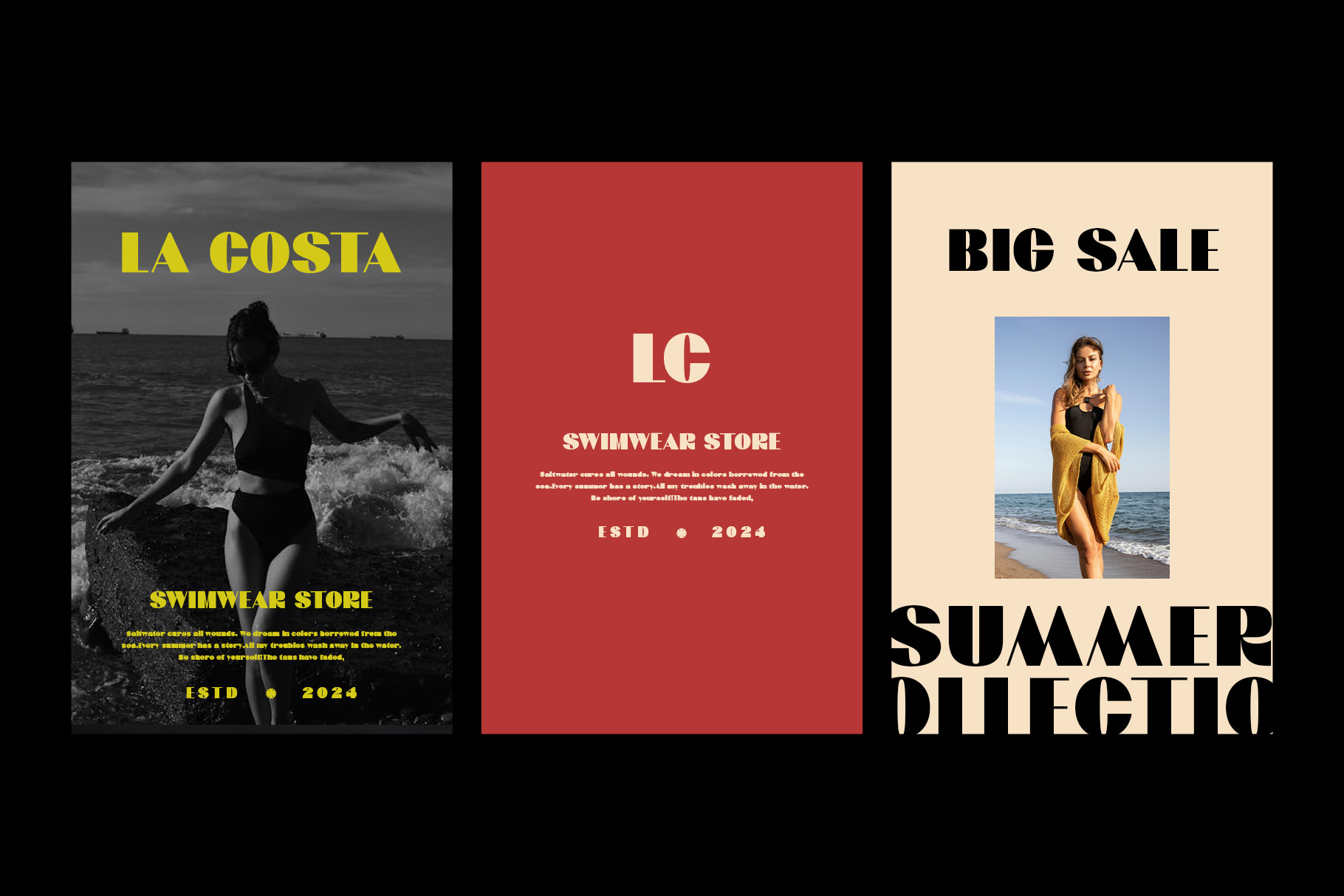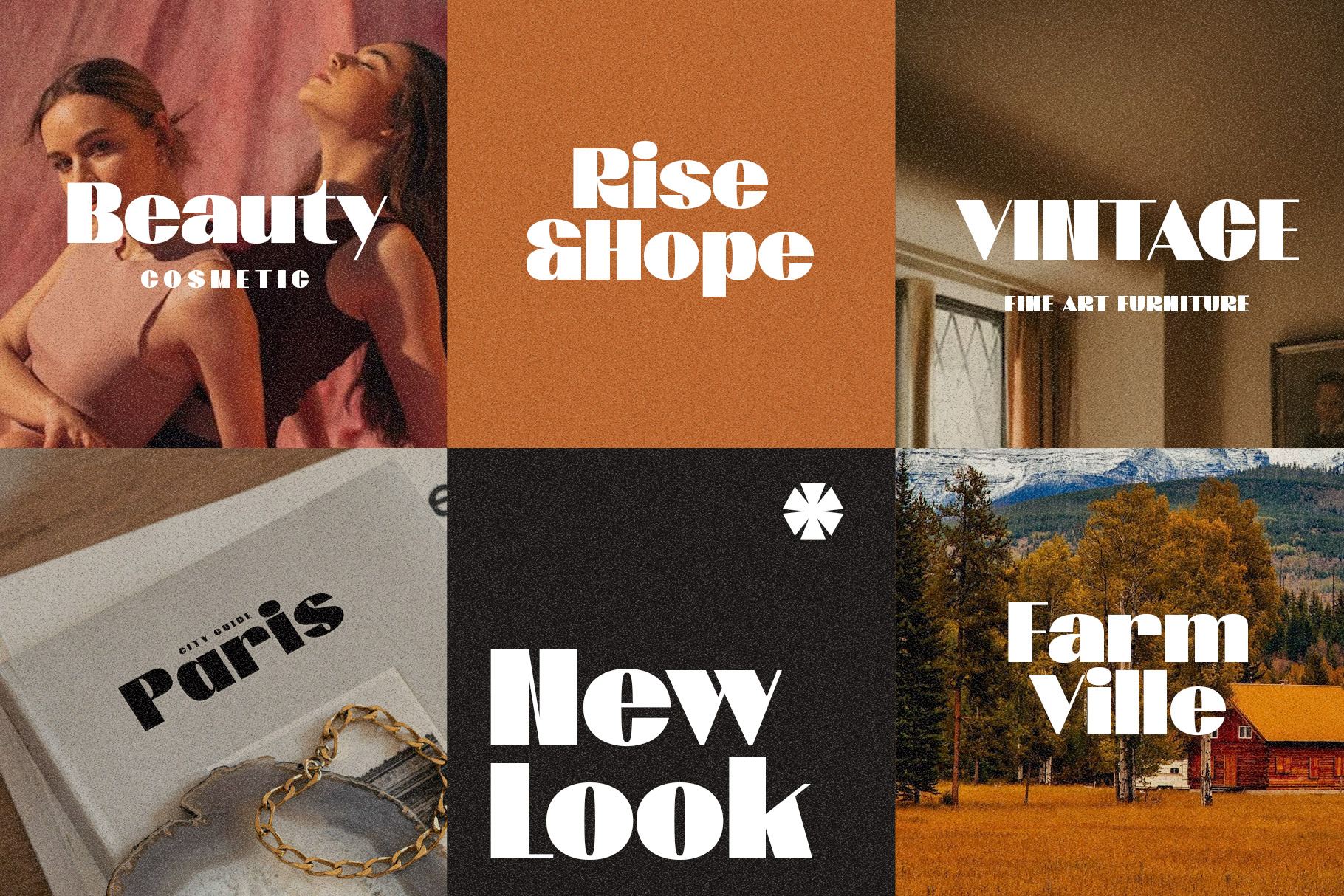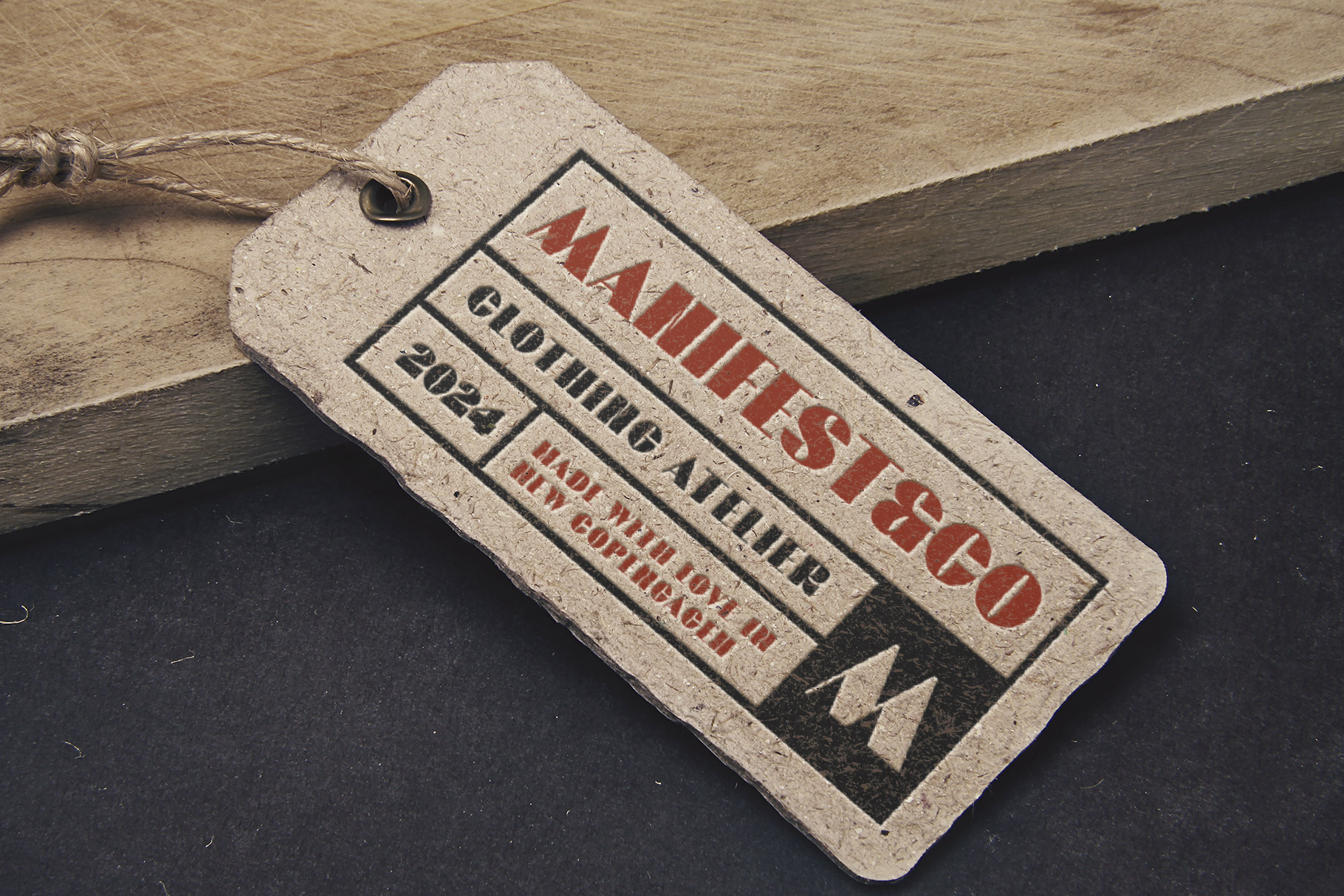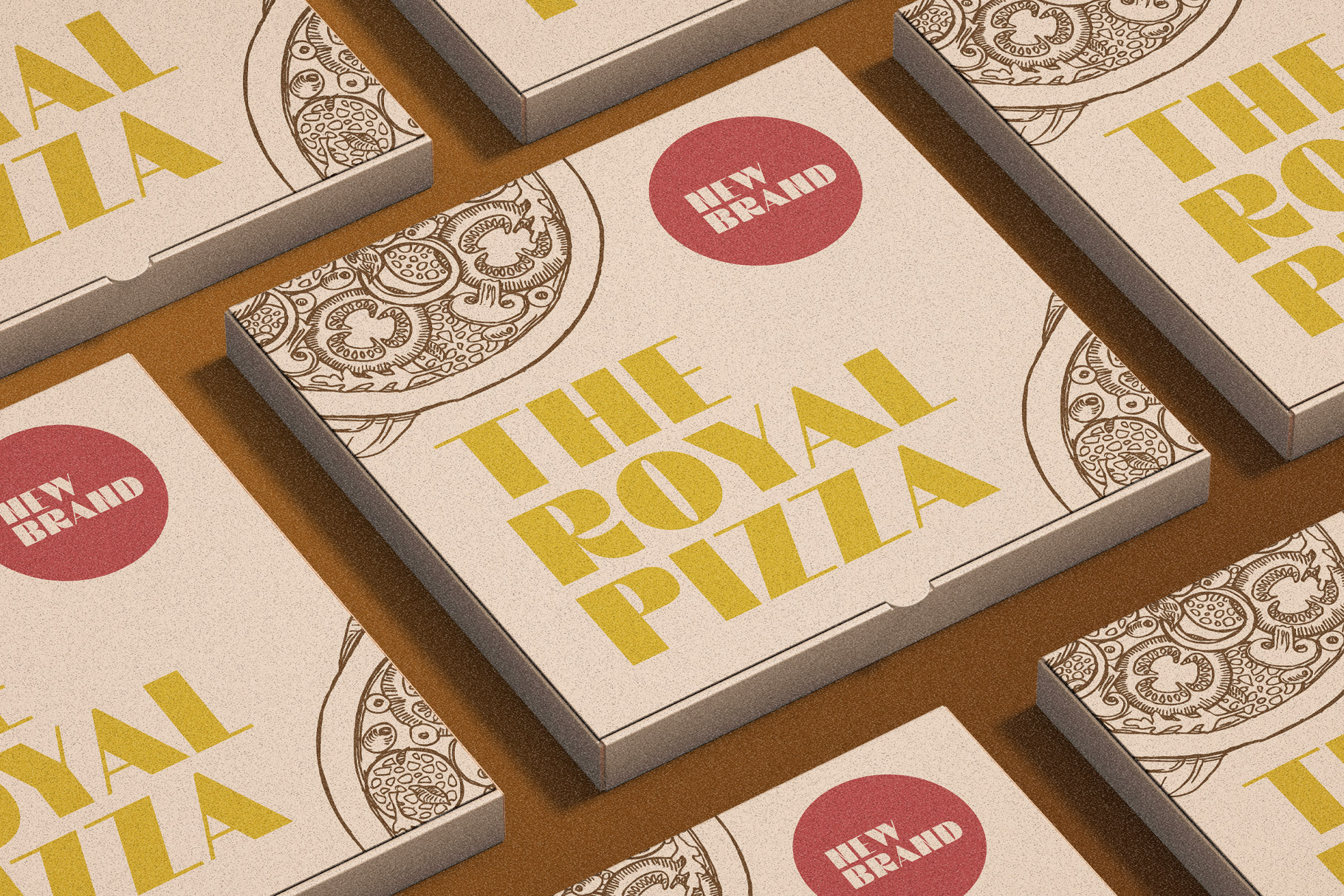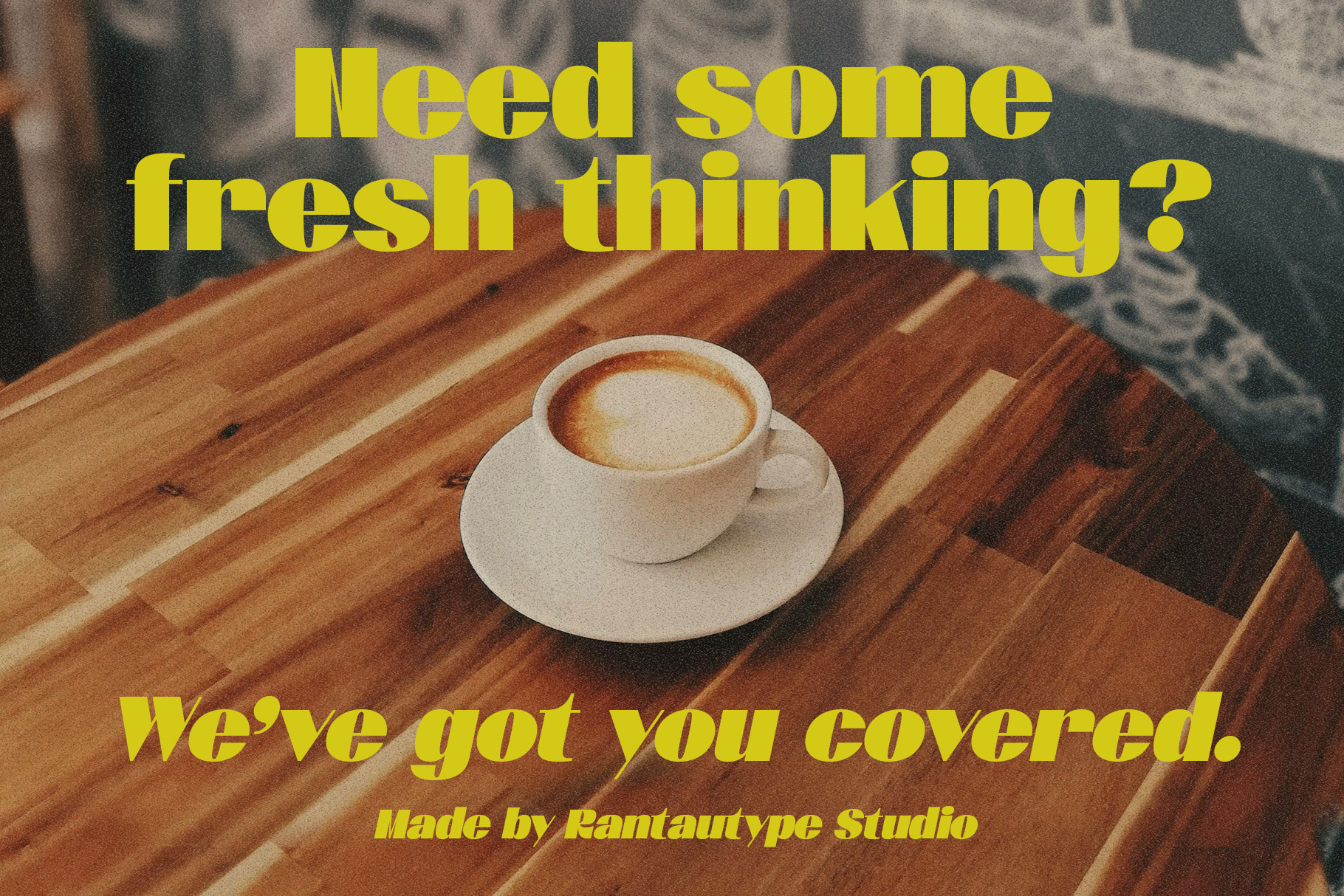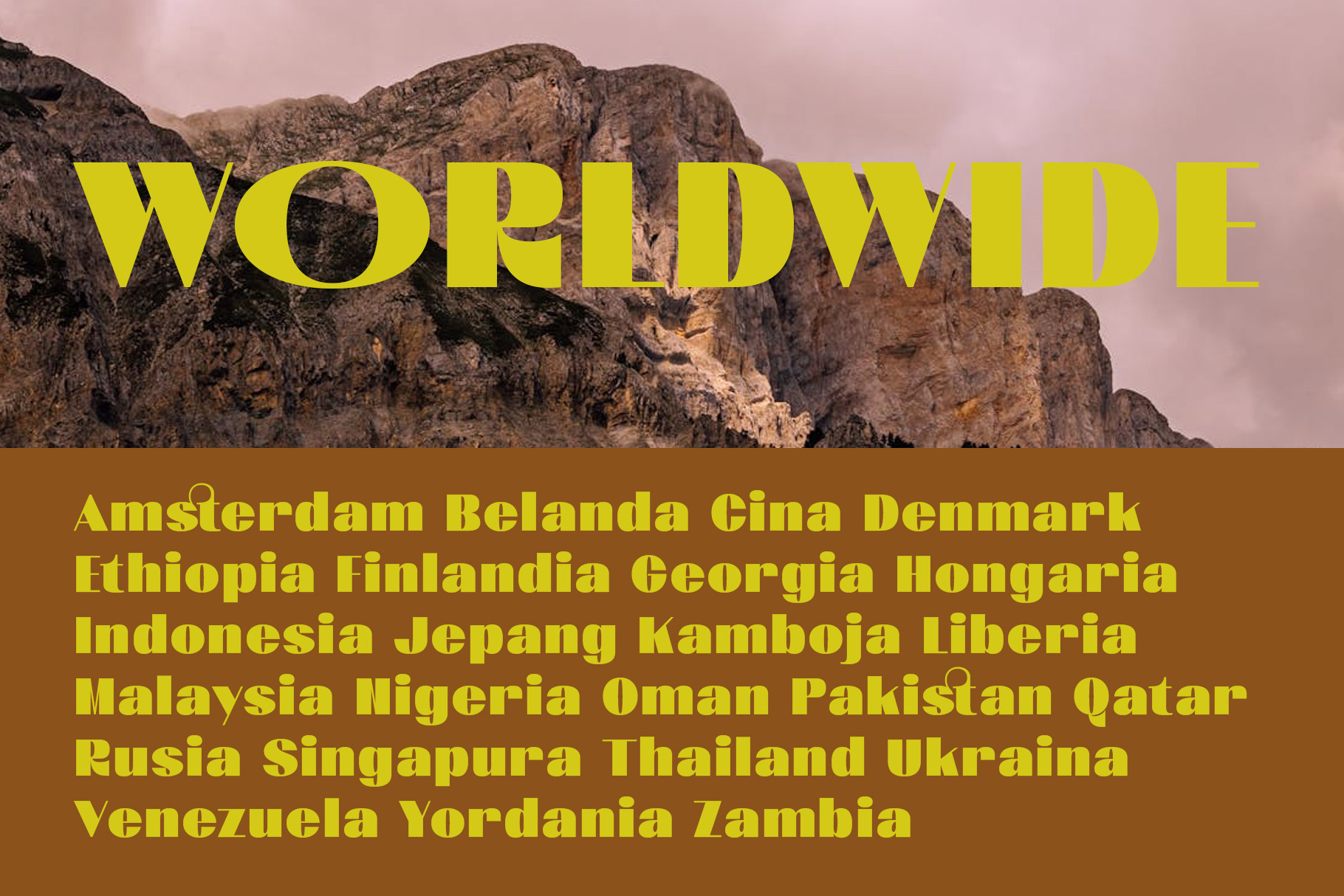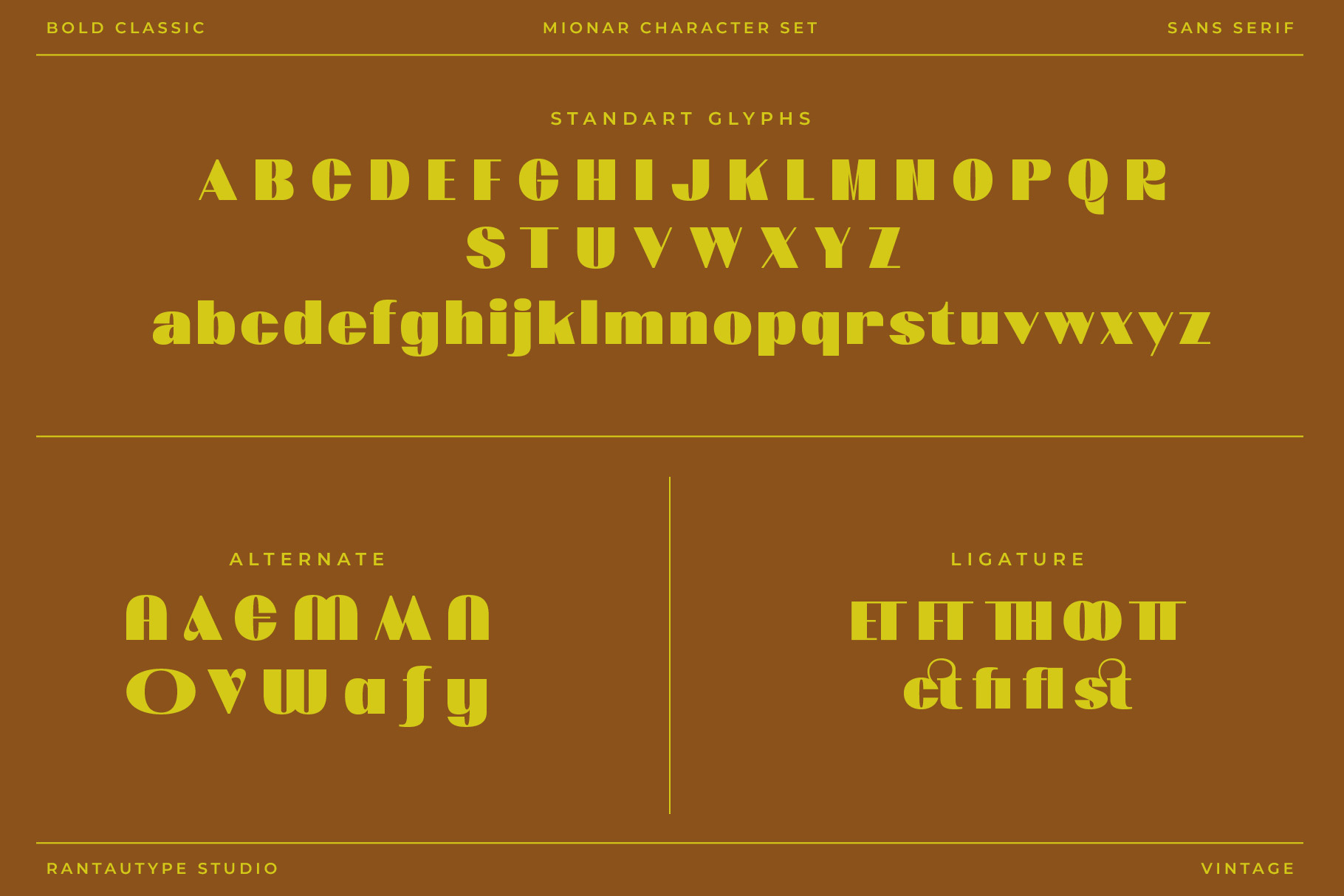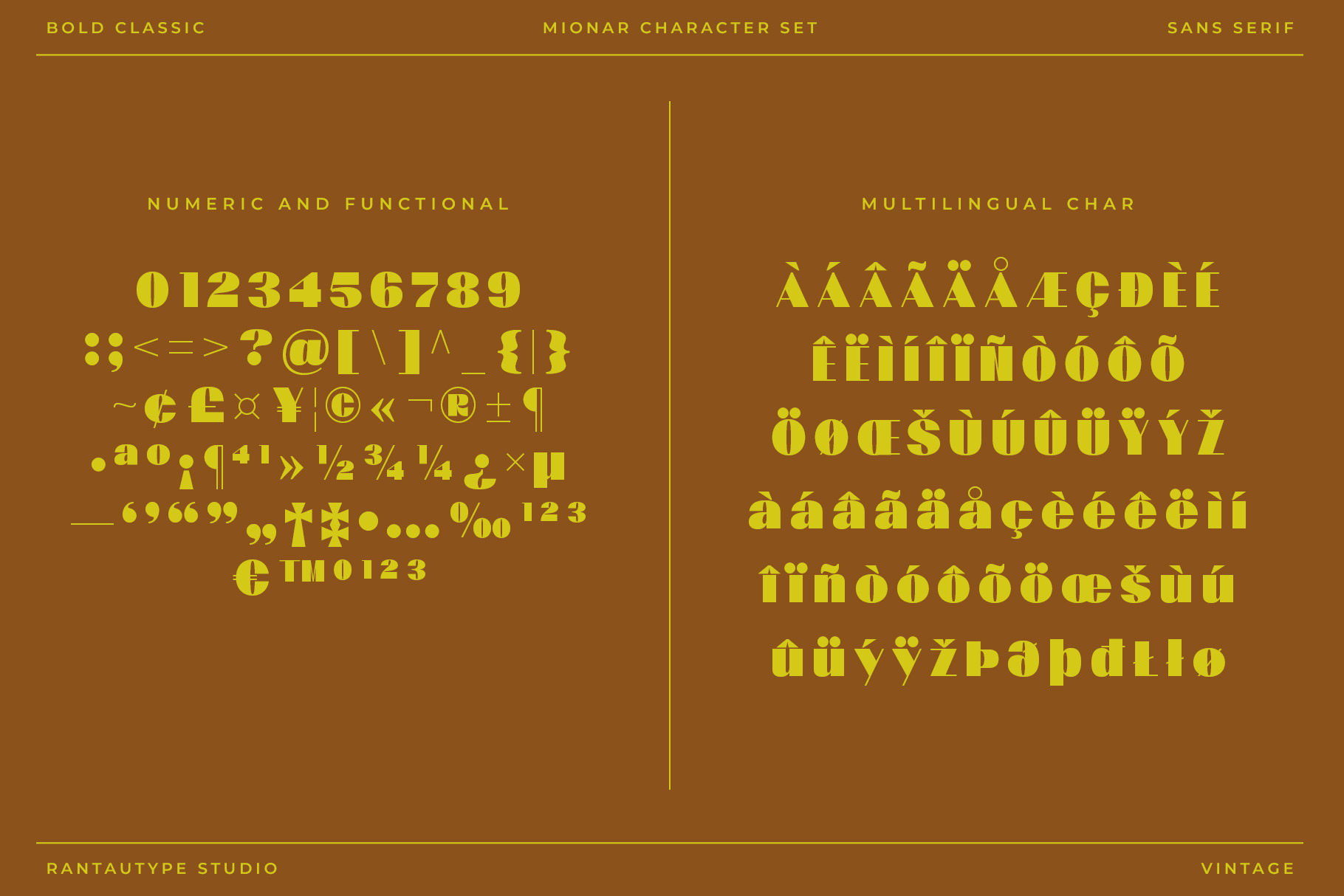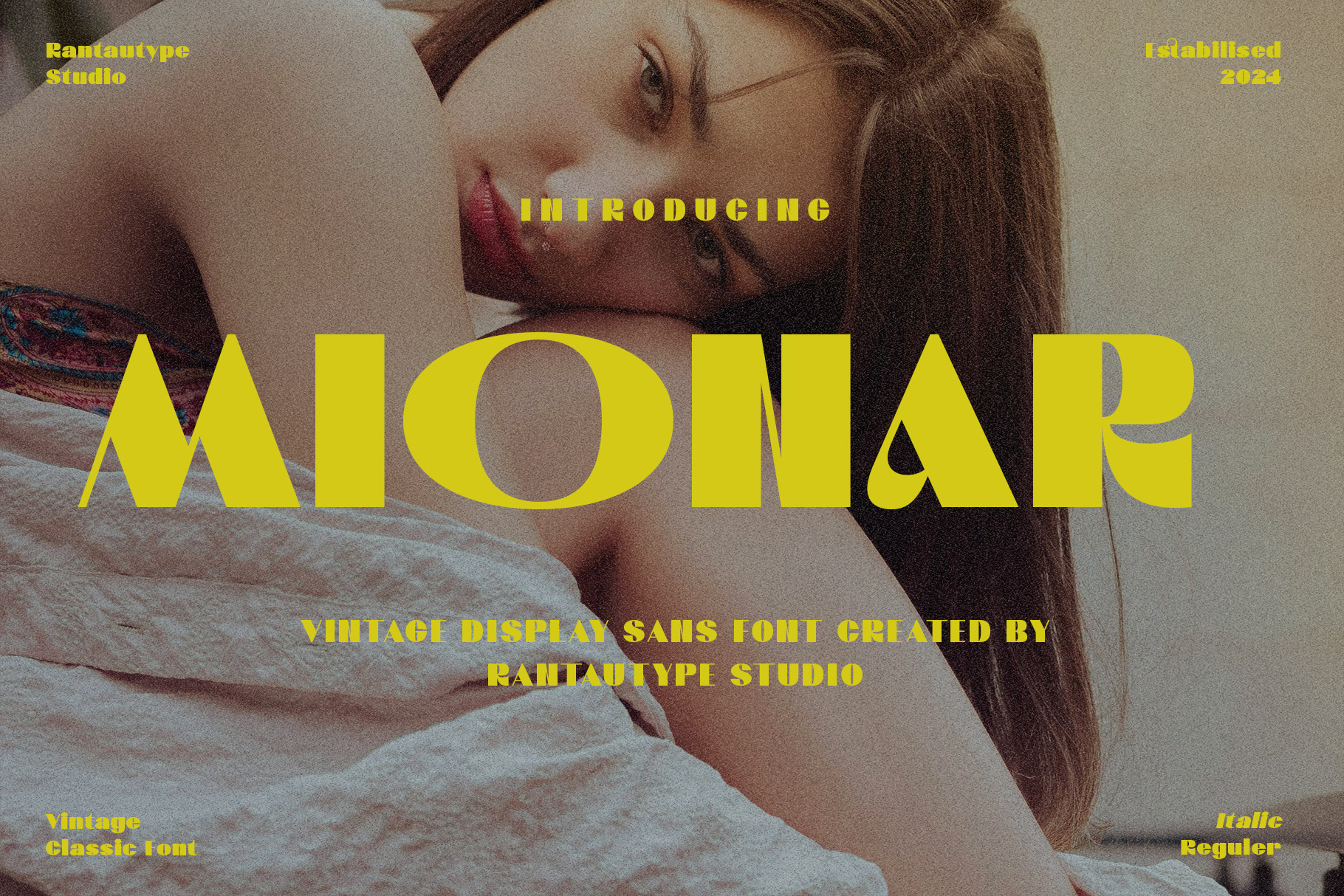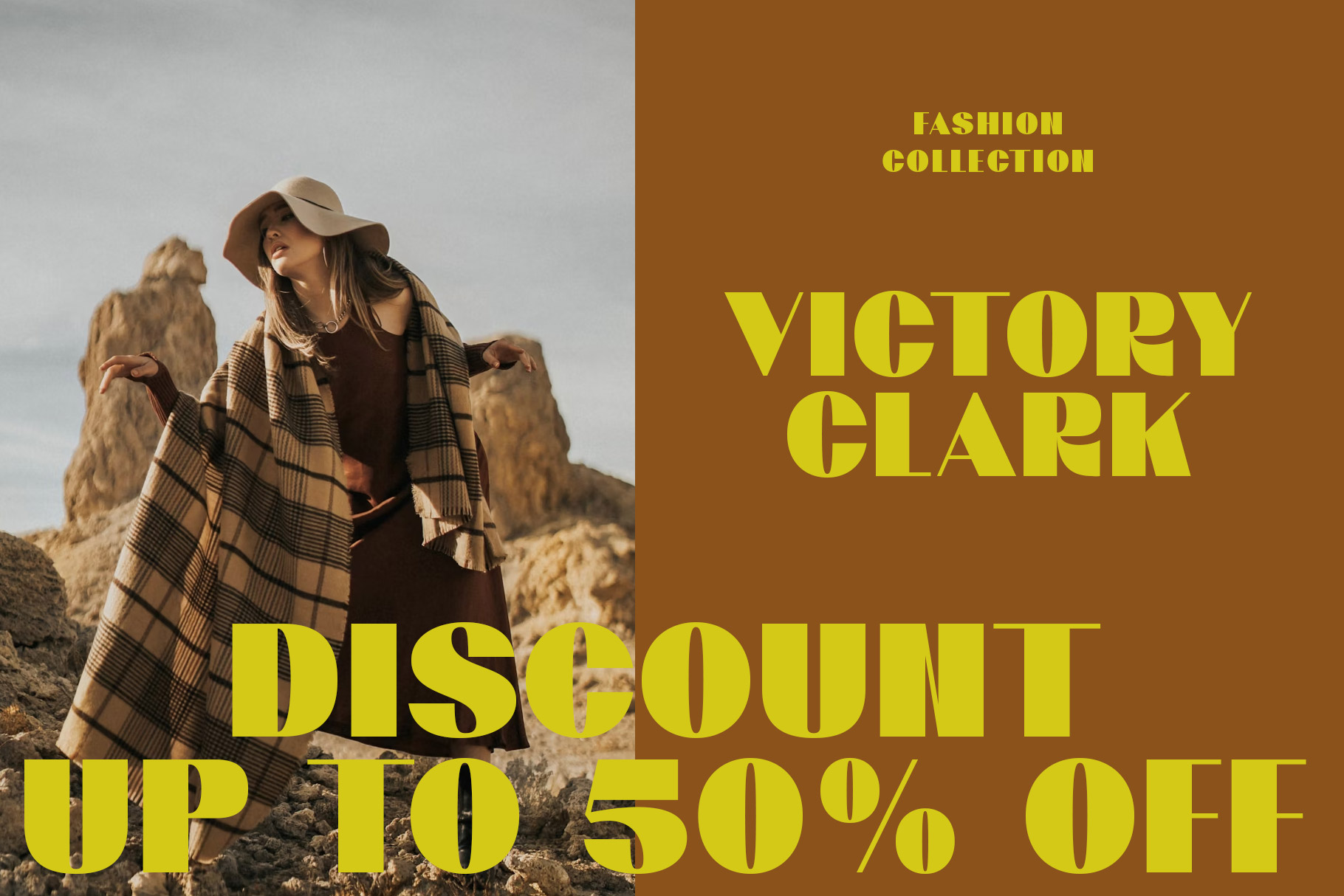
Mionar Vintage Bold Sans Font
Mionar is sans serif font with bold, clean and look tightly. Mionar come with minimal white space to appear vintage. Mionar is a perfectly choice for any creative endeavor, chic, lifestyle design such as logotype, advertisements, watermark on photography, stationery, branding project, display and magazine, invitation, corporate brand, product design, label, business project and many other project with modern or vintage touch.